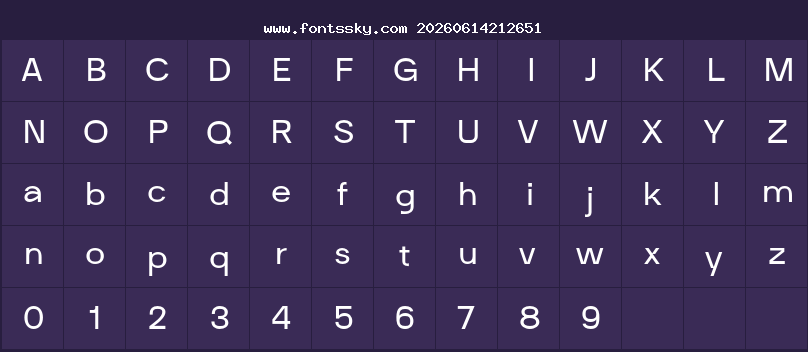
Racama Preview
• Font Name: Racama
• Full Font Name: Racama-Regular
• Designer: Serg Shishin
About Racama.otf
Racama.otf is a modern, elegant sans-serif font designed for ultimate readability and visual harmony. Perfect for branding, headlines, web design, and print materials.